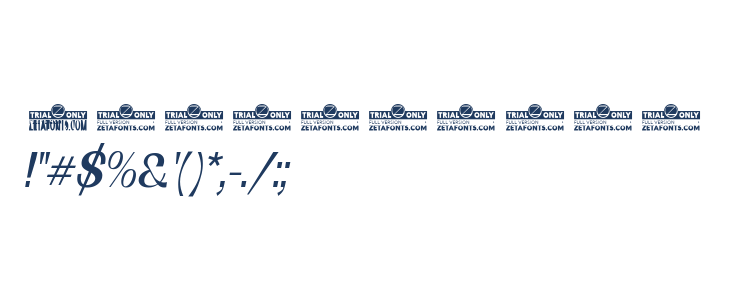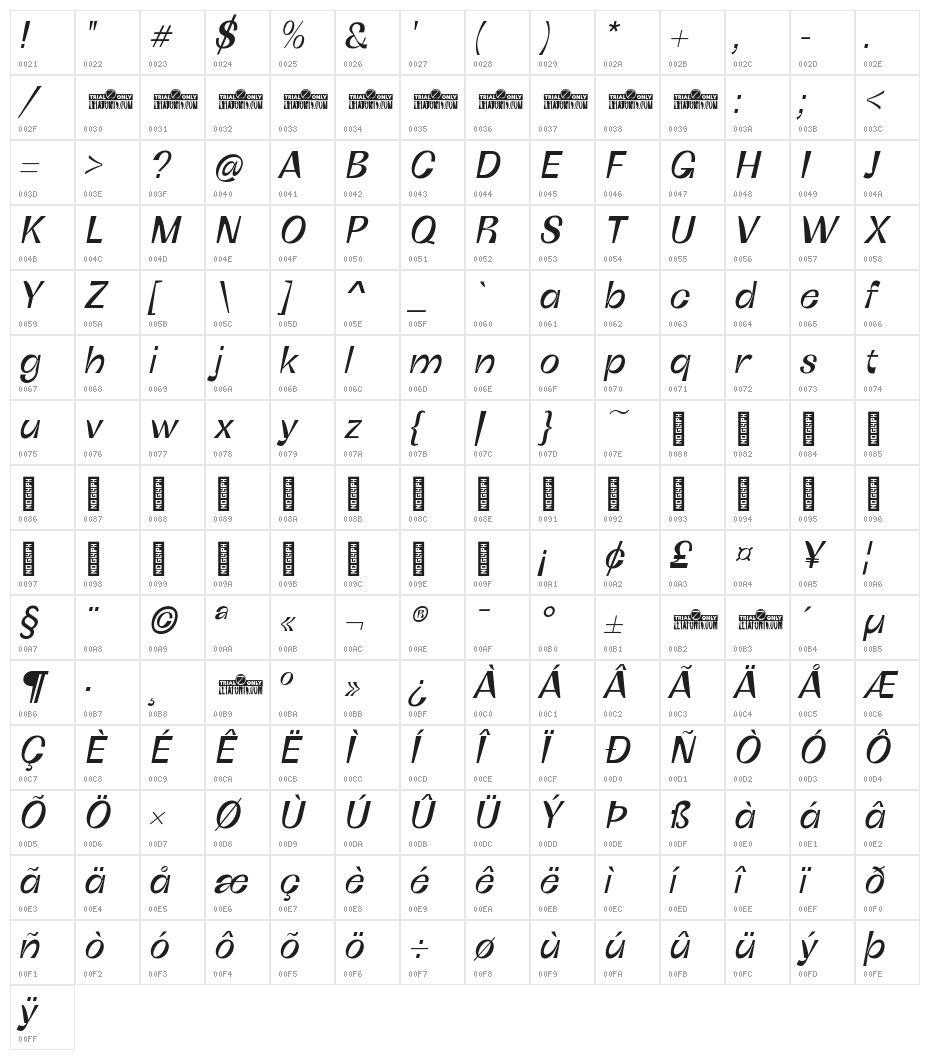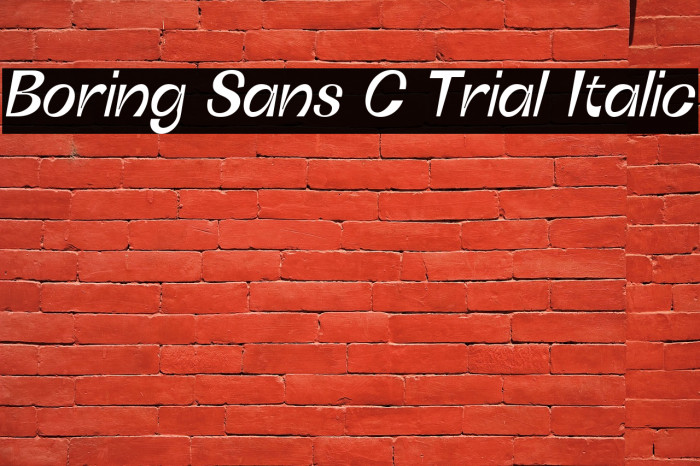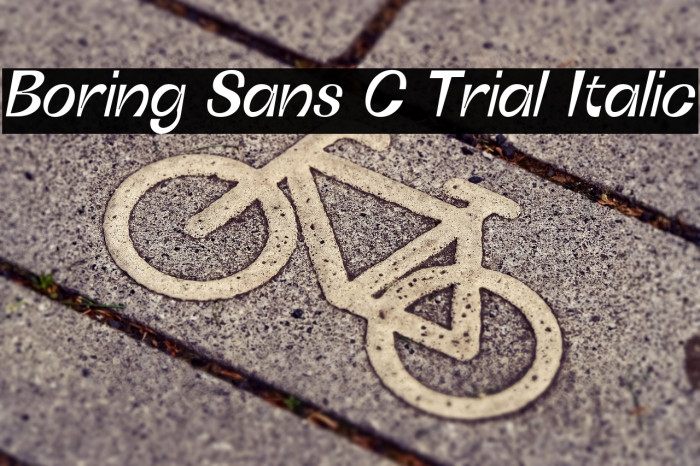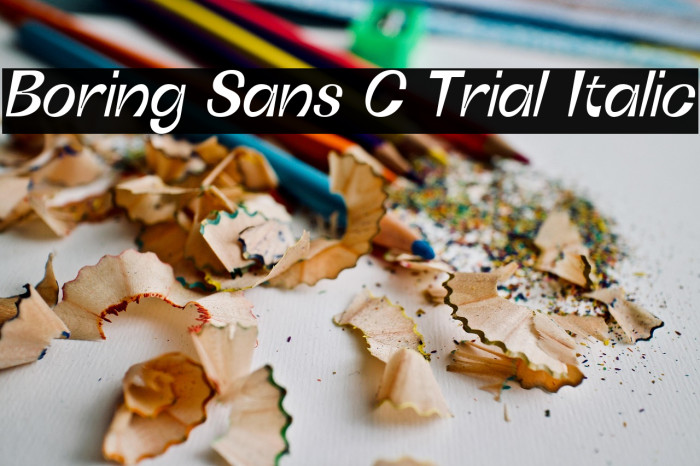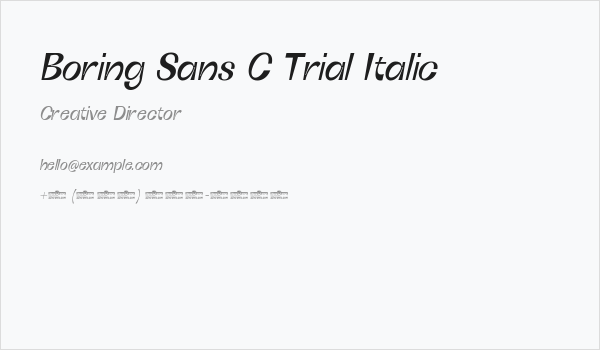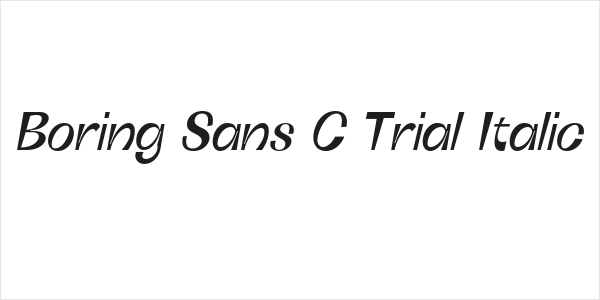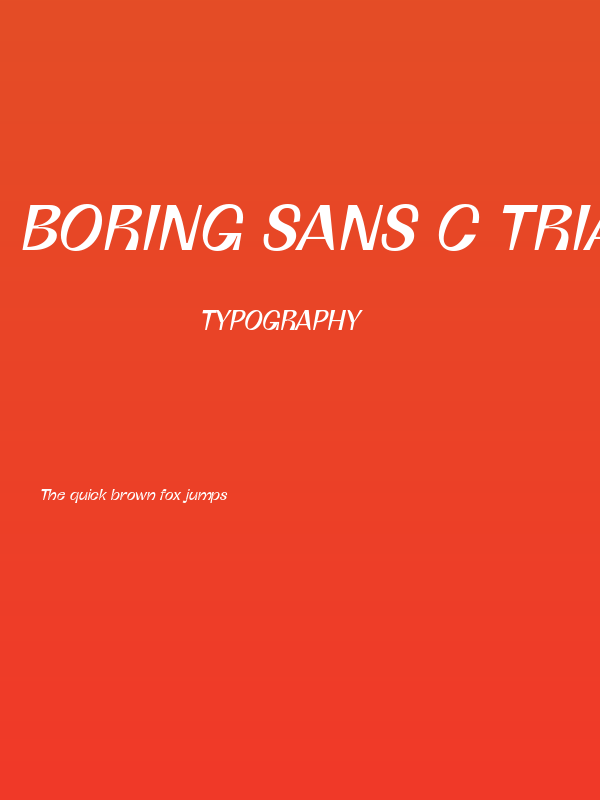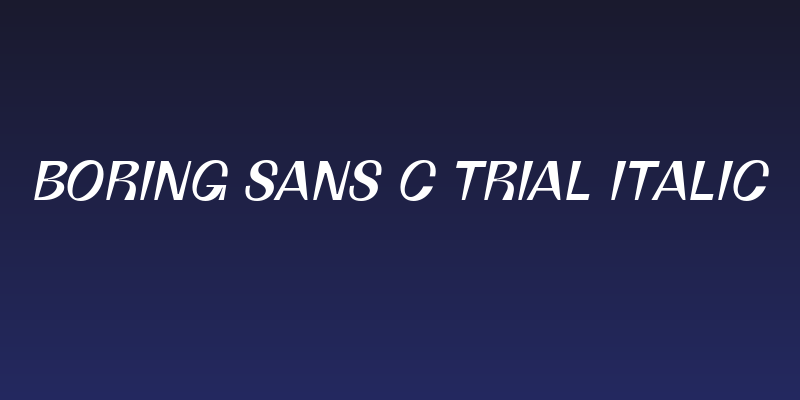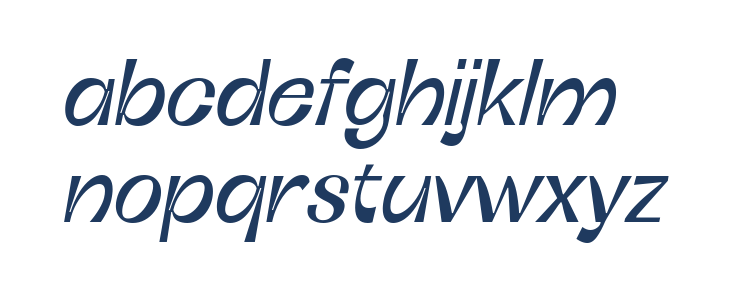
Boring Sans C Trial Italic Font
Boring Sans C Trial Italic Description
This font features a sleek, italicized design with a modern sans-serif style. The characters are slightly slanted, giving a dynamic and forward-moving appearance. The strokes are consistent in thickness, providing a uniform look across all characters. The uppercase and lowercase letters are well-proportioned, maintaining readability while adding a touch of elegance. The numbers and special characters follow the same stylistic approach, ensuring cohesion throughout the font. The overall design is clean and minimalistic, making it suitable for contemporary applications.
| Proposed Projects | Ideal for branding, advertising, and digital media projects where a modern and clean aesthetic is desired. |